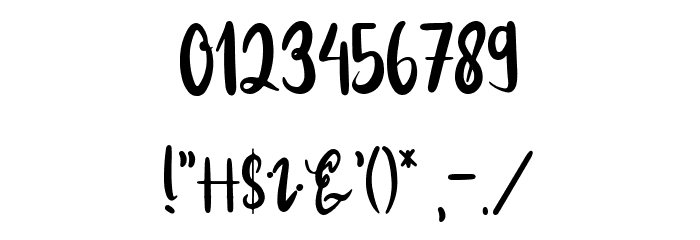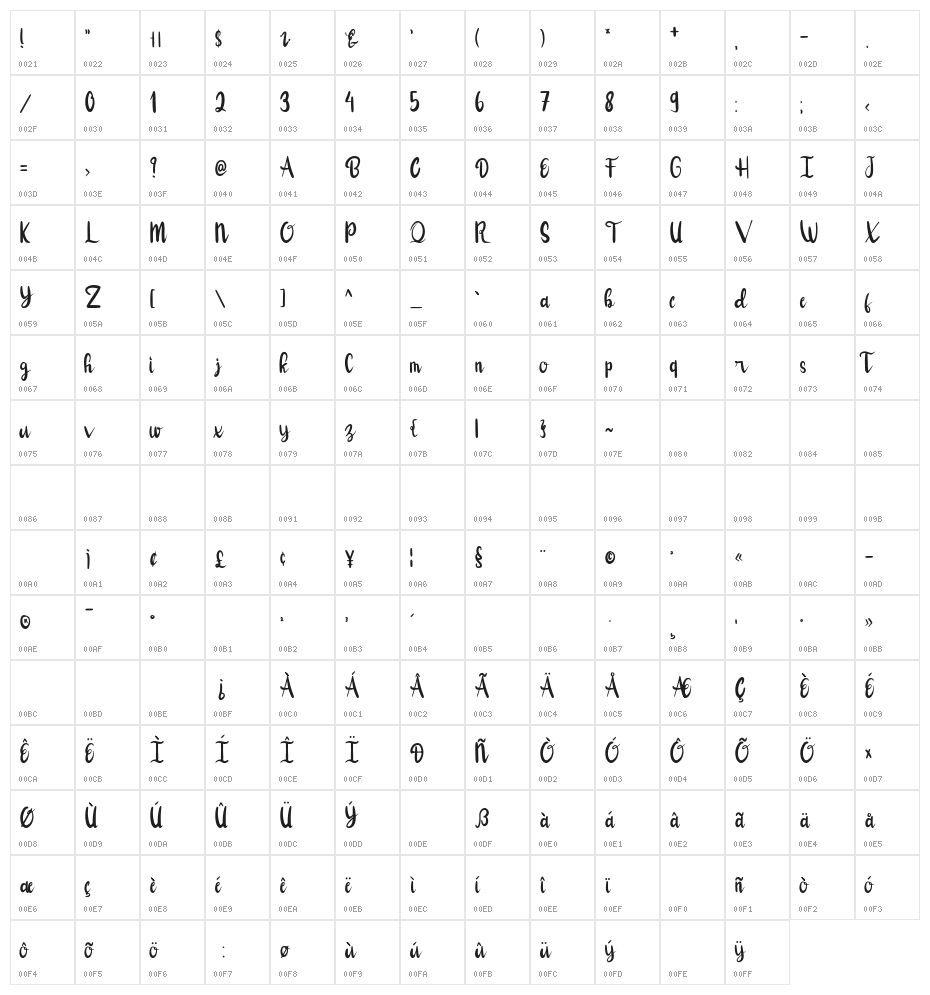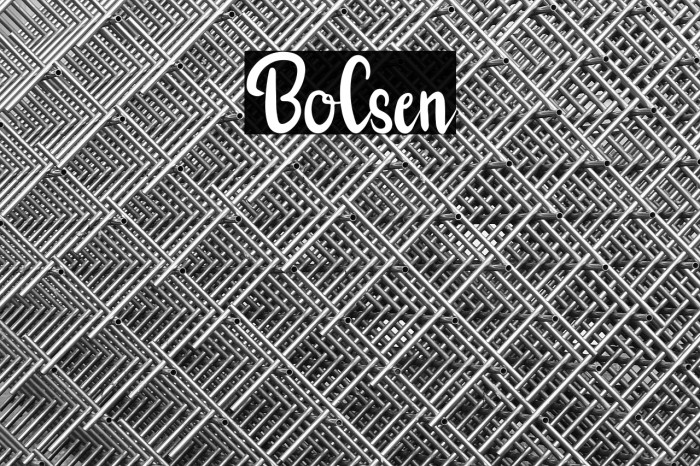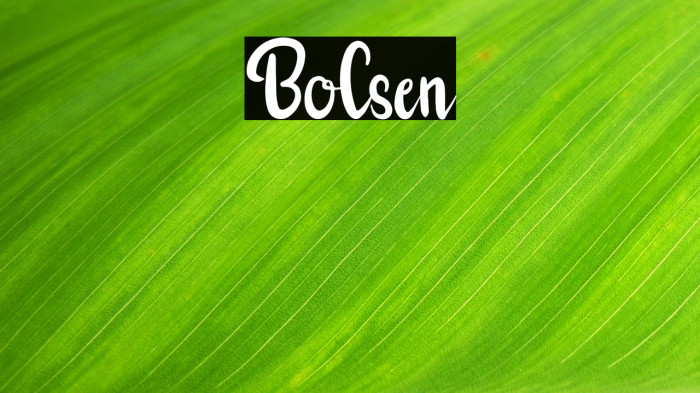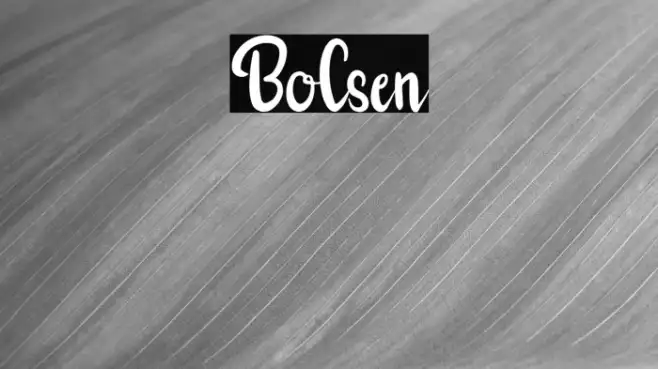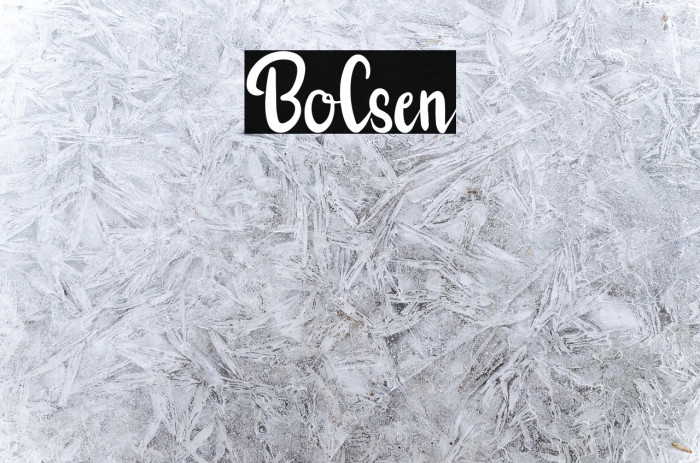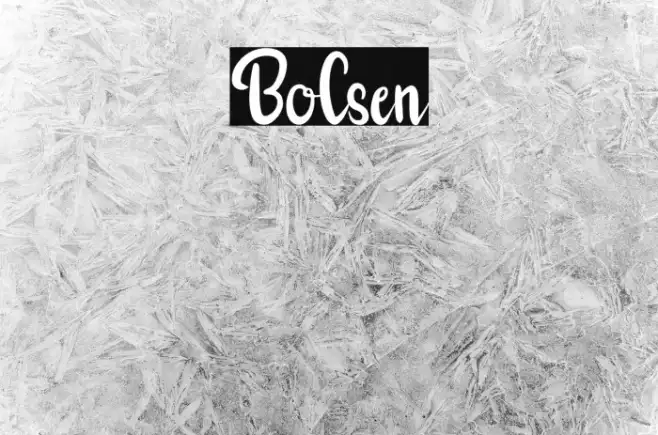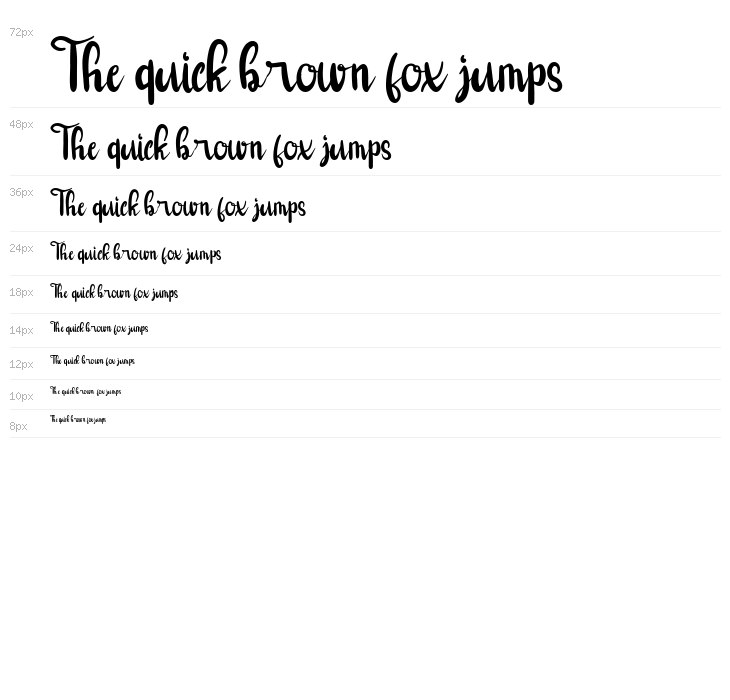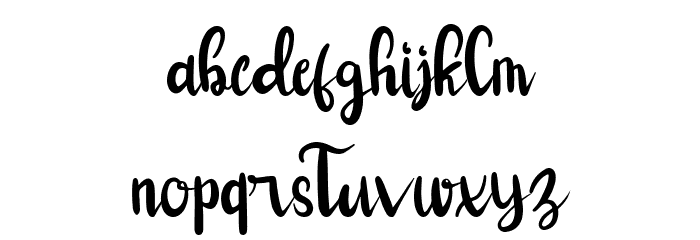
Bolsen Font
Bolsen Description
This font features a playful and dynamic script style, characterized by its fluid and cursive letterforms. The uppercase letters are bold and slightly slanted, giving a sense of movement and energy. The lowercase letters maintain a consistent flow with elegant loops and curves, adding a touch of sophistication. The numerals are clear and easy to read, while the special characters integrate seamlessly with the overall design. The font's unique charm makes it suitable for creative and expressive projects, offering a modern twist on traditional script styles.